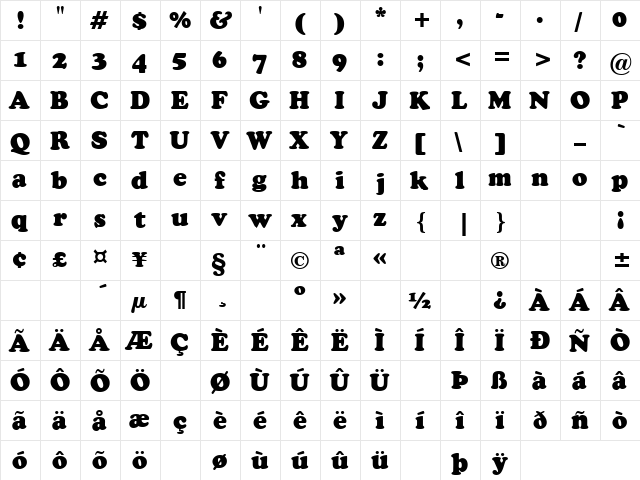
Poverty 9 Regular Font Preview
Poverty 9 Regular
Design Context for Poverty 9 Typeface
Poverty 9 offers clean, dependable letterforms without strong stylistic allegiance, making it a practical choice for designers who need flexibility.